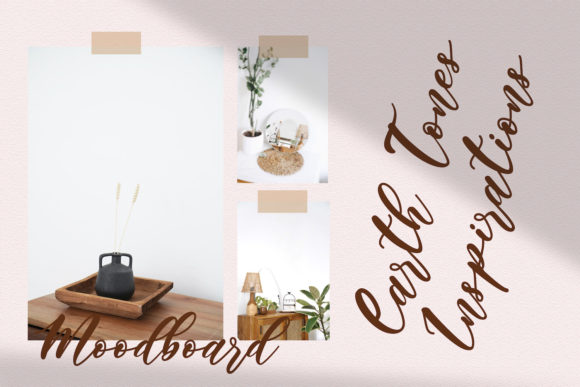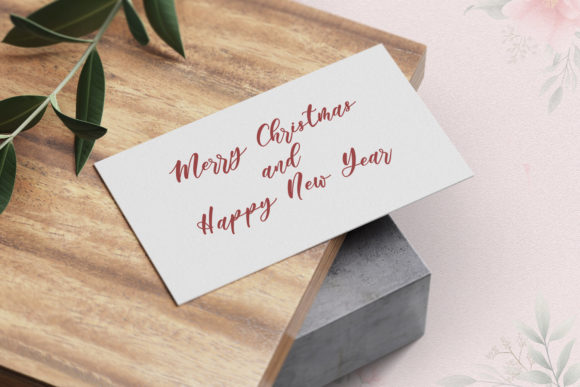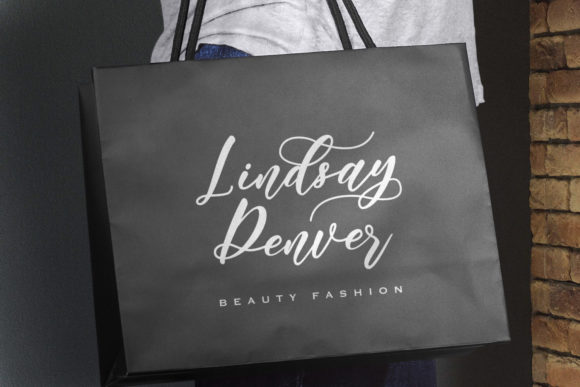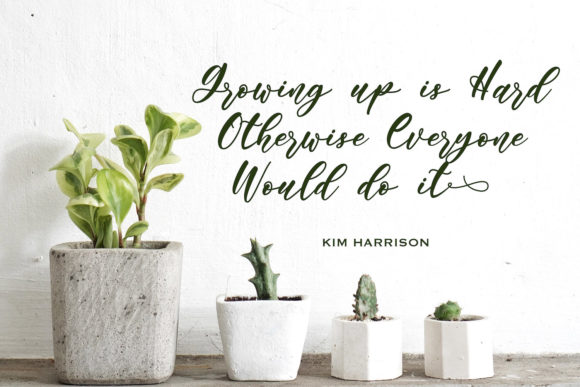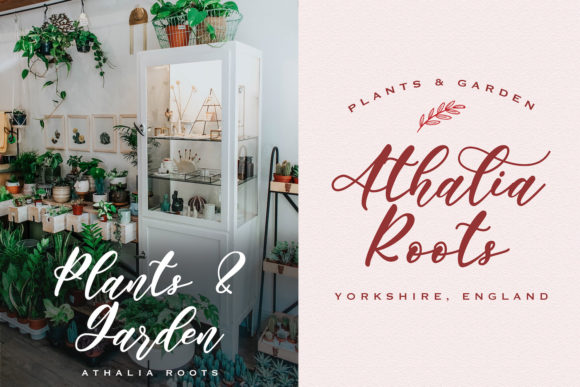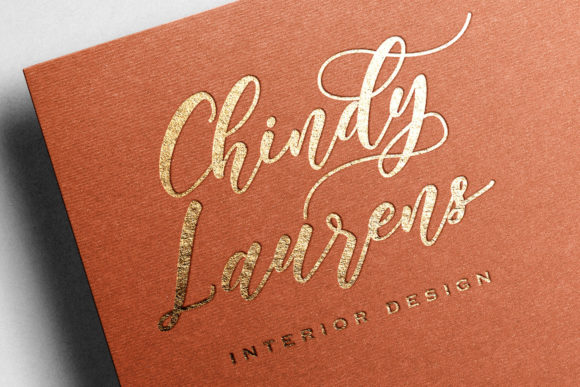
Unleash Your Creativity with Angelina Rahmy Font
Have you ever been stuck on a design project, struggling to find the perfect font to convey your message? You’re browsing through font libraries, scrolling through endless options, and still, nothing seems to capture the essence of your vision. This is where the magic happens – when you stumble upon a font that speaks to your soul, and everything falls into place.
Enter Angelina Rahmy Font, a masterfully designed handwritten font that will transport your projects to new heights. With its elegant calligraphic influences and contemporary flair, this font is sure to become a favorite among designers. Its PUA encoding makes it easy to access all the glyphs and swashes, allowing you to unleash your creativity and bring your ideas to life.
Whether you’re a seasoned designer or just starting out, Angelina Rahmy Font is a valuable addition to your toolkit. Its versatility and sophistication make it perfect for a wide range of projects, from elegant wedding invitations to modern branding materials. So why settle for ordinary when you can have extraordinary? Fall in love with Angelina Rahmy Font and take your designs to the next level!
Angelina Rahmy Font Key Features
- Font Family: Angelina Rahmy Font
- Font Size: 6,000+ glyphs, 20 font styles (Regular, Bold, Italic, etc.)
- Resolution: Supports up to 2048 x 2048 dpi
- Language Support: Multi-language support, including Latin, Cyrillic, and Devanagari scripts
- Unique Characteristics: Elegant, cursive script with ornate details, ideal for creative and artistic projects
Designer Review: Angelina Rahmy Font
Overall, I think Angelina Rahmy Font is a great addition to any designer’s toolkit. The font has a unique and elegant style that can add a touch of sophistication to any project ✨. The font is highly legible and works well in a variety of contexts, from body text to headings.
- Legibility: Angelina Rahmy Font is extremely easy to read, making it perfect for long blocks of text or body copy.
- Customizability: The font comes in a range of weights and styles, allowing designers to customize their project to suit their needs.
- Aesthetic: The font has a beautiful, elegant feel that can add a touch of class to any project.
However, there are a few limitations to keep in mind ⚠️. The font may not be the best choice for projects that require a bold, attention-grabbing look. Additionally, the font may not be suitable for digital use at very small sizes, as it can become difficult to read.
Overall, I think Angelina Rahmy Font is a great choice for designers who want to add a touch of elegance to their projects. While it may have some limitations, the font is highly legible and customizable, making it a great addition to any designer’s toolkit.
Angelina Rahmy Font Practical Application Guide
To get the most out of the Angelina Rahmy Font, use it in combination with bold and italic styles to add emphasis to your text. You can also use it in conjunction with other decorative fonts to create a unique and eye-catching design.
The Angelina Rahmy Font is suitable for a variety of use cases, including:
– Digital art and illustrations
– Book covers and interior design
Lato is a sans-serif font designed by Łukasz Dziedzic. It is a clean, modern font ideal for digital interfaces, websites, and mobile applications. Lato is a better option than Angelina Rahmy Font for its simplicity and legibility in digital environments.